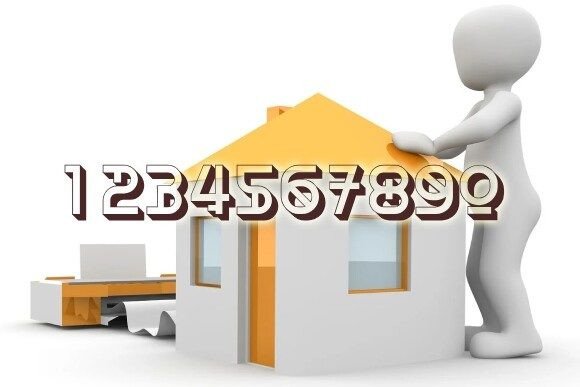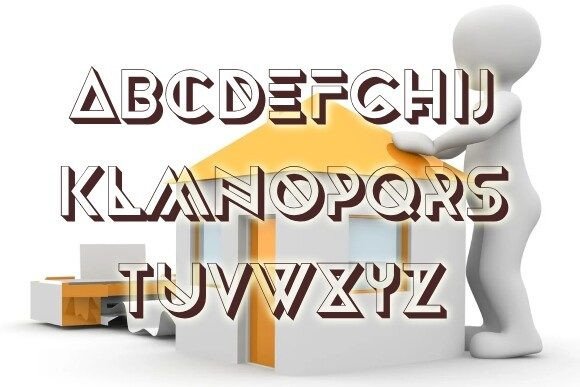
Introduction to Placed Font
Have you ever stared at a blank page, waiting for the perfect font to spark your creativity? That’s exactly what happened to me when I first laid eyes on the Placed Font. Its sleek, modern design instantly caught my attention, and I knew I had to use it for my next design project.
As a designer, I can attest to the importance of having a reliable design resource that can elevate our creative projects. The Placed Font is just that – a high-quality, versatile font that can add a touch of sophistication to any design. Whether you’re working on a poster, flyer, or t-shirt design, this font is sure to impress. And the best part? It’s available for a free download, making it a valuable addition to any designer’s toolkit.
With its transparent background and sleek lines, the Placed Font is perfect for designers who want to create eye-catching designs that stand out from the crowd. Whether you’re a seasoned pro or just starting out, this font is sure to become a go-to resource for all your design needs.
Key Features of Placed Font
• High Quality Design: Placed Font offers a high-quality design resource ideal for creative projects.
• Transparent Background: The font comes with a transparent background, allowing for easy integration into various design elements.
• High Resolution: The font is available in high resolution, making it perfect for large-scale designs and print materials.
• Perfect for Digital Use: With its high-quality design and transparent background, Placed Font is ideal for digital use, including websites, social media, and mobile apps.
Honest Review: Placed Font
As a designer, I’m always on the lookout for high-quality design resources that can elevate my creative projects. Recently, I stumbled upon the Placed Font, and I’m excited to share my thoughts on this unique font.
• ✨ The font features a transparent background, making it easy to place over any image or design without worrying about unwanted colors clashing.
• ✨ The design is modern and sleek, making it perfect for a wide range of creative projects, from logos to brochures.
• ⚠️ The font may not be suitable for more traditional or conservative designs, as it has a modern and edgy feel.
Overall, I’m impressed with the Placed Font. Its unique design and free download make it a great addition to any designer’s toolkit. While it may have some limitations, I believe it’s a valuable resource for designers who want to add a modern touch to their creative projects.
Placed Font: A High-Quality Design Resource
Placed Font is a free download that offers a high-quality design resource for creative projects. With its transparent background, it’s perfect for designers looking to add a unique touch to their designs.